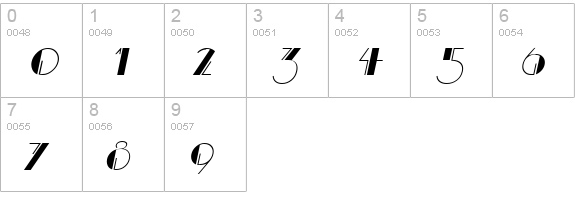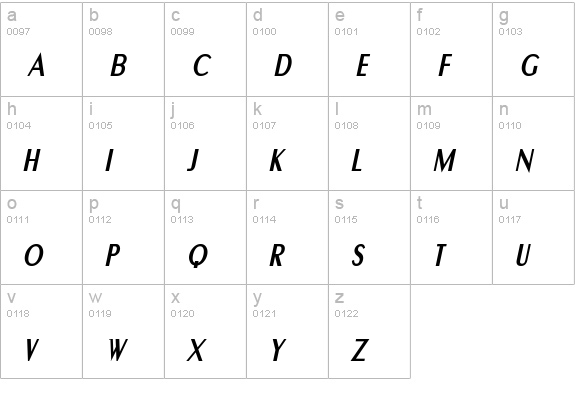
Banco Italic is a distinctive, italic variant in the Banco typeface family \xE2\x80\x94 well suited to design and typography projects.
Introducing Banco Italic font, a stunning and elegant typeface that effortlessly combines classic charm with a modern twist. The sleek italicized design of Banco exudes sophistication and luxury, making it perfect for a wide range of design projects. With its smooth curves and stylish letterforms, Banco Italic adds a touch of refinement to any text or headline. Whether used for branding, editorial design, or advertising, this font is sure to make a bold statement. And the best part? Banco Italic is completely free to download at FontsMarket.com, allowing you to elevate your designs without breaking the bank. Don't miss out on the opportunity to add this versatile and eye-catching font to your collection today!